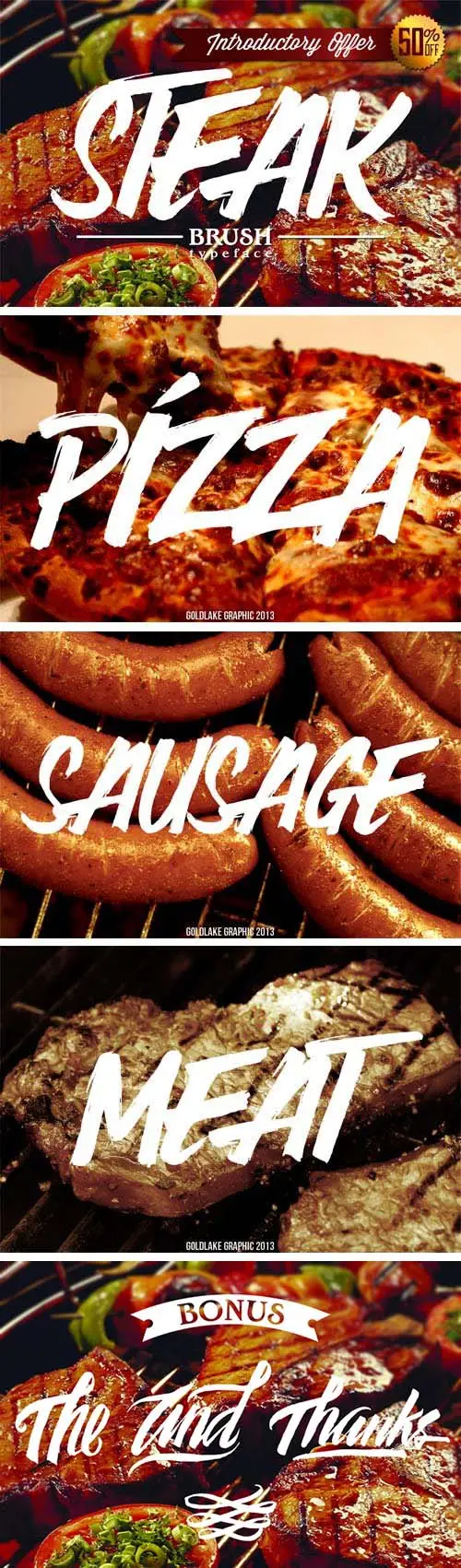
GL Steak Brush Font
GL Steak Brush is a handpainted typeface with rough brush looks and vintage sign painting style. It's available in uppercase, number, and punctuation only. Easy to use in Adobe Illustrator or Adobe Photoshop.